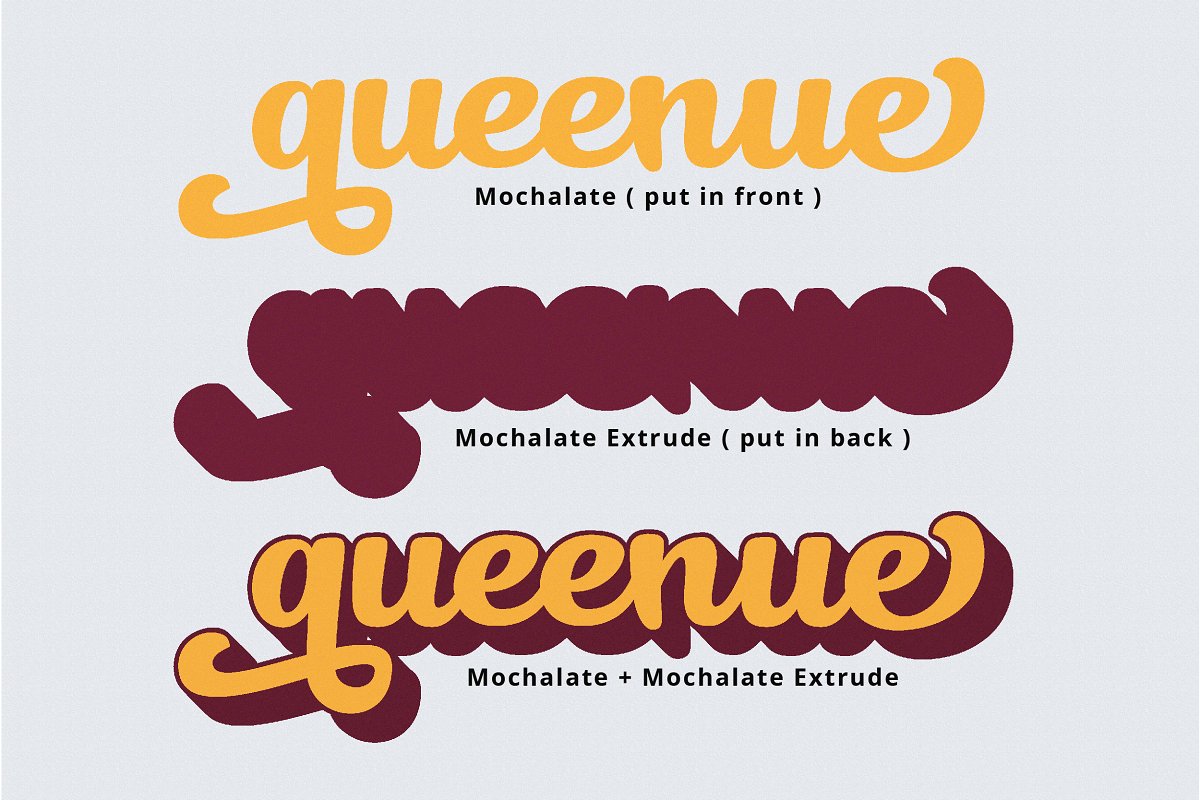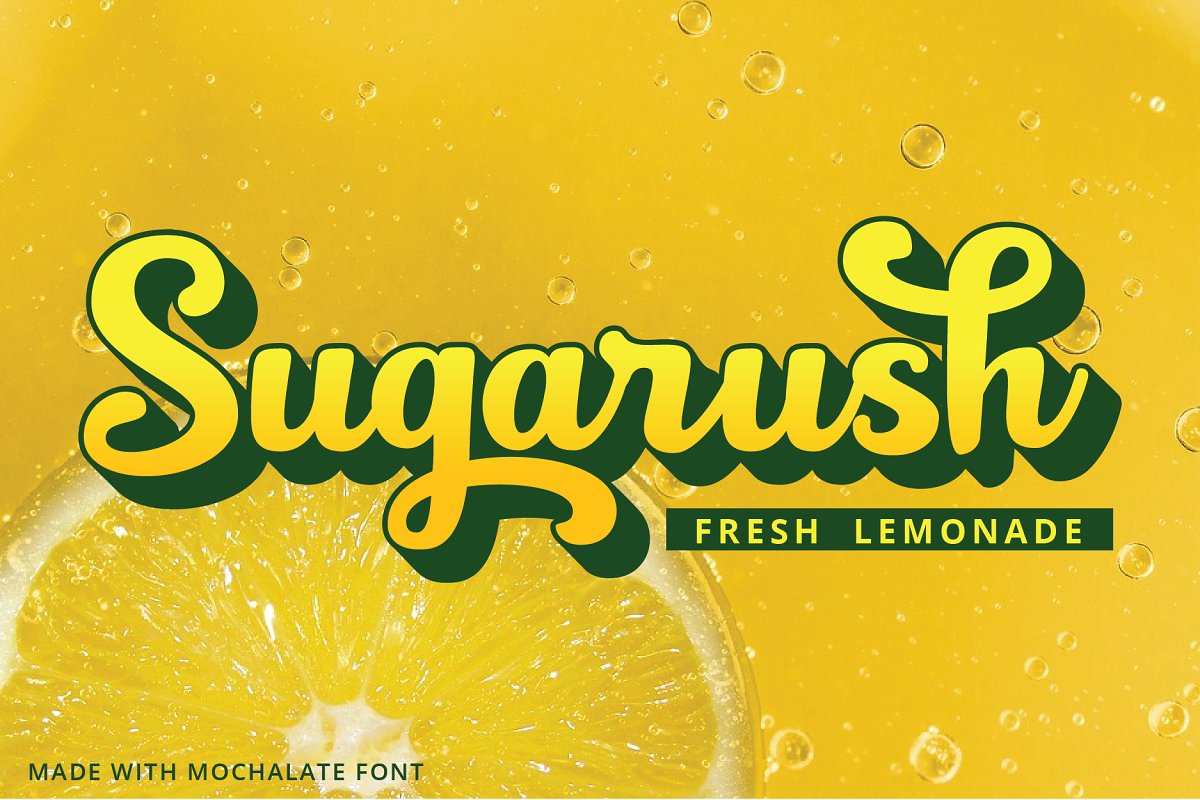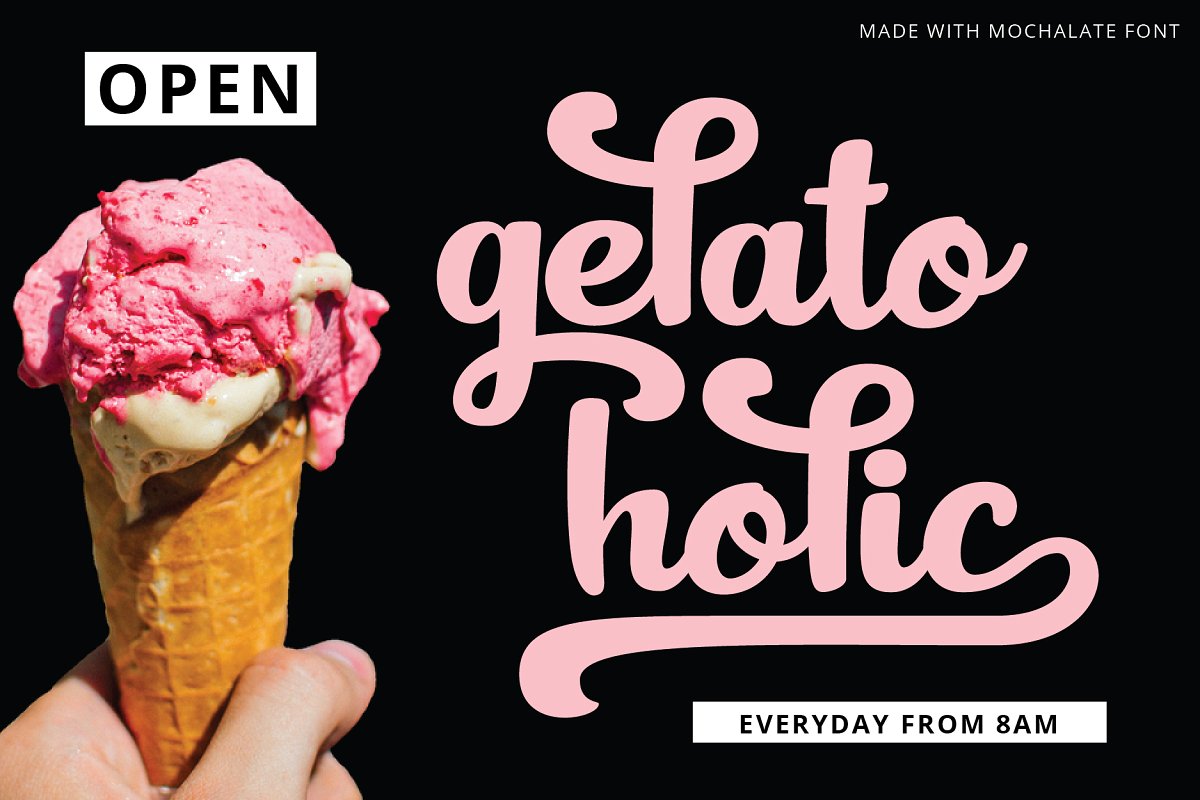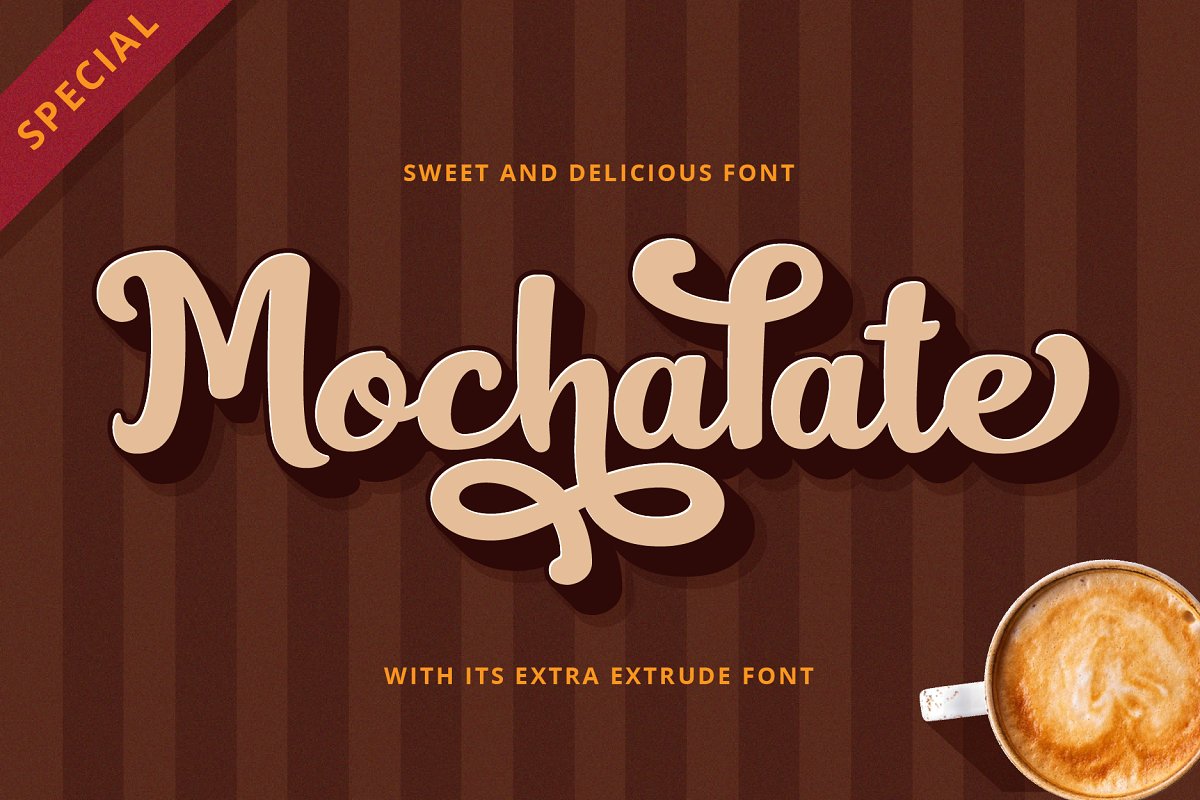
Mochalate Script Font
This font was designed by handwriting, and it has a modern and unique forms of calligraphy, the writing style is very natural. Introducing Mochalate Font. Mochalate is a bold, savory, sweet and delicious. It comes with its unique extrude shadow version. It’s like a mochalatte, a great combination of hot chocolate and thick latte. It is like a chocolate cake that freshly baked from the oven, the smell is so yummy. This font is great for any kind of display use from packaging, title, poster, headline and logos.